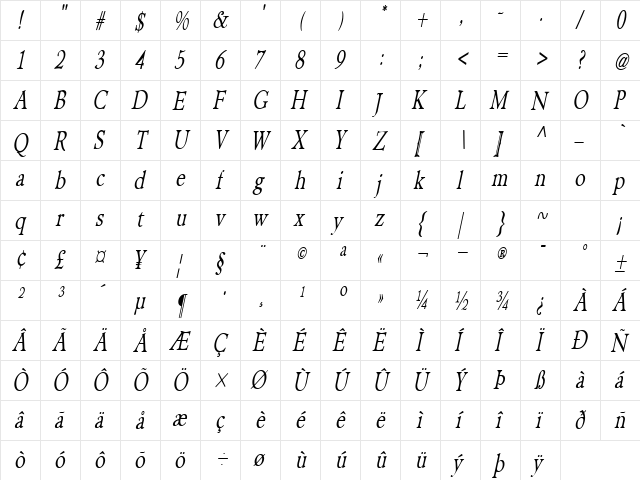
NewHampshireCondensed Italic Font Preview
Design Context for NewHampshireCondensed Typeface
NewHampshireCondensed is a composed and adaptable typeface that performs quietly and consistently across a wide range of design contexts. The dynamic lean of this cut emphasises speed and emphasis in any layout. Its narrow stance lets it pack a punch even in space-constrained designs.
Pro Tip: Try NewHampshireCondensed for annotation and caption copy alongside an upright companion — the contrast in angle creates a dynamic but ordered typographic system.